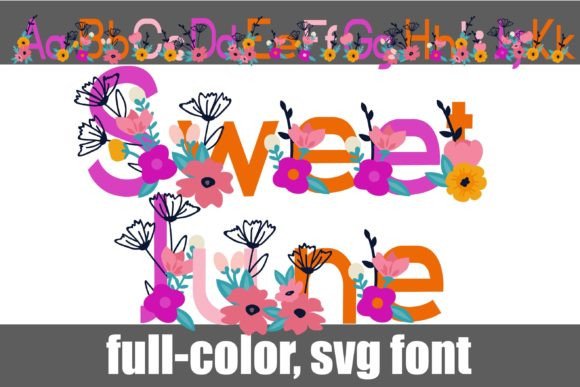
**Sweet June: The Font That Adds Color to Your Creations**
In a world of black and white, let your designs burst forth with vibrant hues, thanks to the enchanting Sweet June font. This captivating font family, brought to life by Illustration Ink, is not just your average set of letters; it's an explosion of colors, a symphony of shades that will transform your designs into captivating masterpieces.
**A Symphony of Colors, a Chorus of Creativity**
Sweet June is a full-color font, a groundbreaking innovation that shatters the boundaries of traditional typography. With a palette that rivals the rainbow, this font lets you paint words with a spectrum of colors, opening up endless possibilities for creative expression. From captivating logos that leap off the screen to eye-catching web designs that dance with vibrancy, Sweet June is the key to unlocking a world of chromatic wonders.
**Versatility Unbound, Possibilities Unleashed**
With Sweet June, versatility is not just a word; it's a creed. This font family thrives in diverse terrains, from the delicate intricacies of logos and branding to the boundless expanses of web design and print. No matter your creative pursuit, Sweet June stands ready to infuse your designs with chromatic magic.
**Quality Unwavering, Beauty Undeniable**
Crafted with meticulous attention to detail, Sweet June exudes quality in every curve and stroke. This font is not a mere collection of shapes; it's a testament to artistry, a celebration of digital craftsmanship. Whether you're scaling your designs to billboard proportions or shrinking them to fit a tiny screen, Sweet June retains its pristine clarity and unwavering beauty.
**Simplicity Embraced, Elegance Achieved**
Despite its vibrant colors and intricate details, Sweet June retains an aura of simplicity, an understated elegance that never overwhelms. The seamless integration of hues creates a cohesive aesthetic, allowing your designs to shine without visual clutter. Sweet June is a symphony of colors, orchestrated to enhance your creations, not overshadow them.
**A Canvas for Your Imagination, A Gateway to Endless Possibilities**
With Sweet June as your creative companion, the boundaries of your imagination dissolve, making way for endless possibilities. Craft logos that ignite recognition, design websites that captivate audiences, and create print materials that leave a lasting impression. The world is your canvas, and Sweet June is your palette, ready to paint your creative visions into vibrant realities.